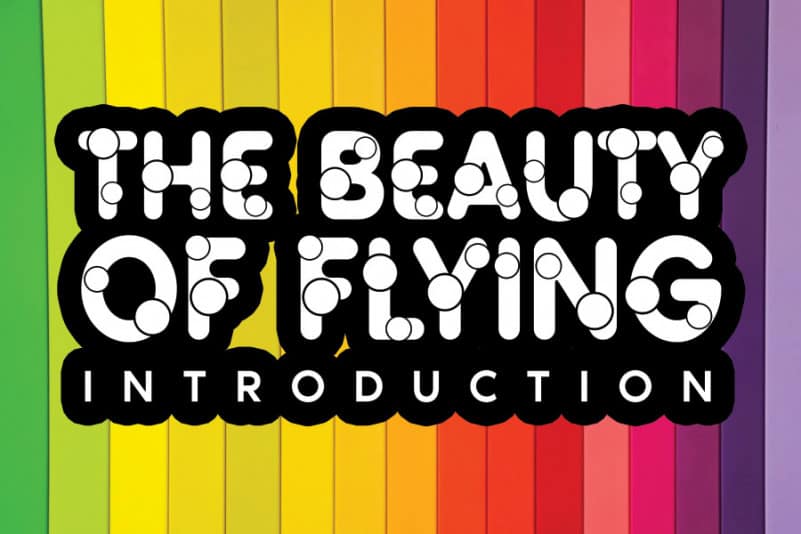
Ballon Bubbles Display Font
Ballon Bubbles Display Font is a fun and original display font. It features a unique look that will your take your crafting projects to the next level! Get creative with its childlike playfulness, and use it to brighten up any kids and school project!
The latest style letters are perfect for wall displays, wedding invitations, social media post logos, advertisements, product packaging, product designs, labels, photography, watermarks, invitations, stationery, and any project that requires taste handwriting.